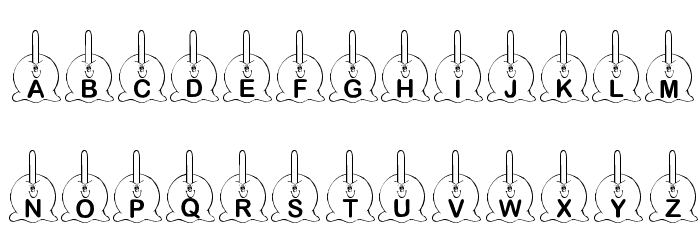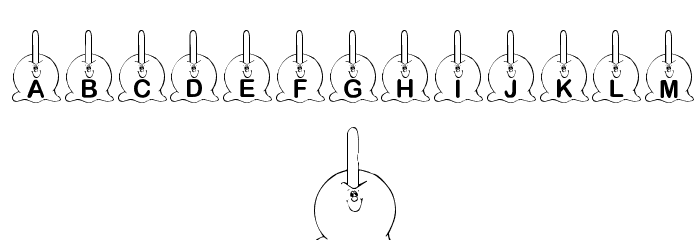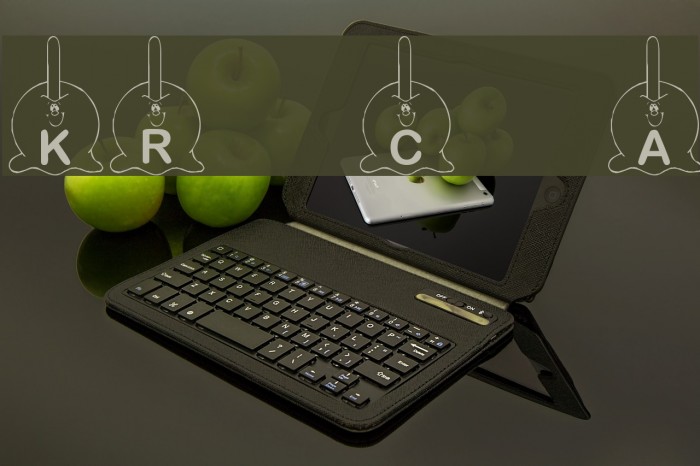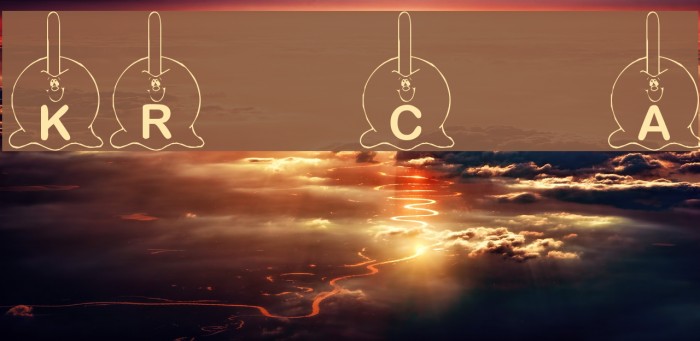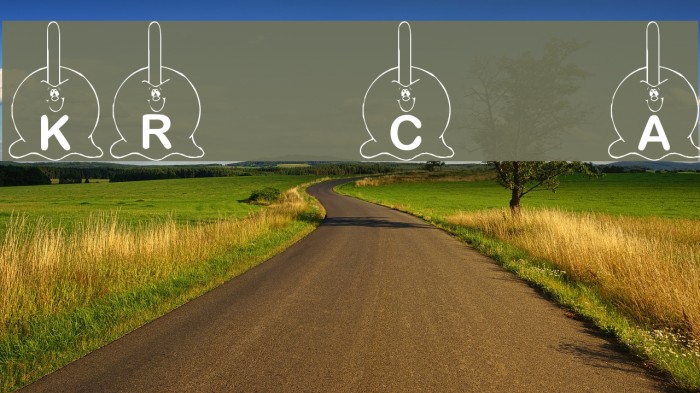
KR Caramel Apple Font
This playful and whimsical font features letters embedded within the shape of a caramel apple, complete with a stick at the top. Each character is bold and clear, making it easy to read despite the decorative apple design. The font exudes a fun and festive vibe, perfect for autumn-themed projects or events. The unique design of each letter being part of an apple adds a charming and quirky touch, making it stand out in any design. The font is consistent in style, with each letter maintaining the same apple shape, ensuring uniformity across text.
A playful font with letters inside caramel apple shapes, perfect for festive designs.
- Proposed Projects: Ideal for autumn festival posters, Halloween invitations, children's party decorations, or any project needing a fun and seasonal touch.